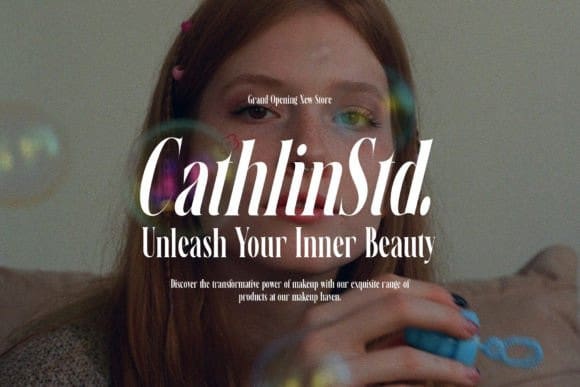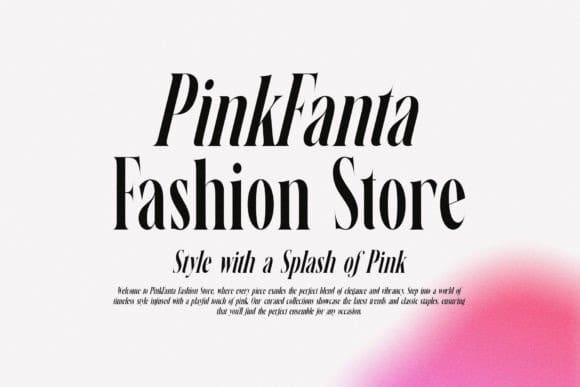
Journey Slovanika Font
Journey Slovanika Font is a new modern serif font, and it looks so elegant. If you look at the characters, there are thin and thick lines. The combination of both lines emphasizes that each letter has quite strong aspects of beauty, fashion, and elegance.
The font is appropriate for headline text or body text. This means that the Journey Slovenica font has a perfect look.
Journey Slovanika has a unique style, and the variety of lines and thickness makes this font perfect for feminine branding. The elegant touch and unified beauty stroke show that the font is remarkable for any product or design.
It can be used ideally for wedding fonts, invitation fonts, invitations, logos, wedding cards, Instagram quote fonts, magazines, editorial signs, packaging, advertising, and many more.
No matter if you use the font for long text, this font type makes the reader feel comfortable when reading the text. So, use the Journey Slovanika to enhance the public awareness of your product.